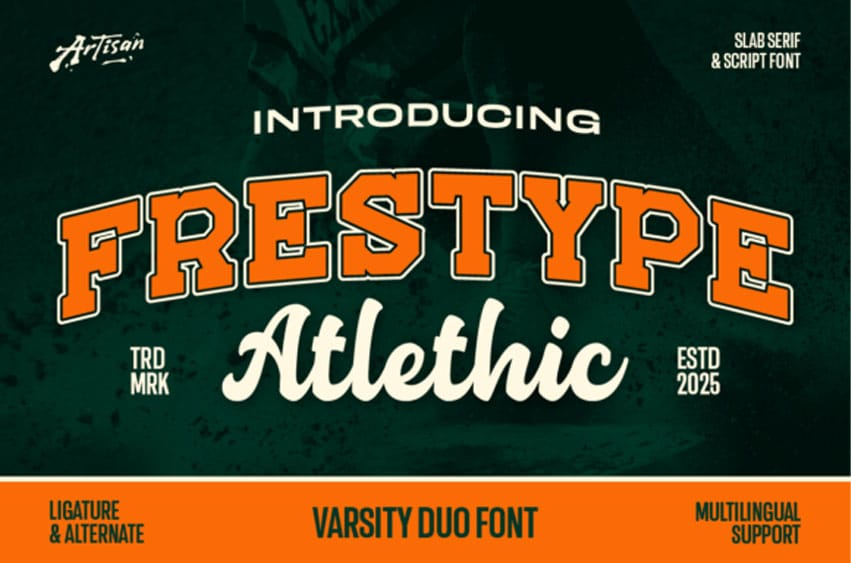
Frestype Atlethic Duo Font is your new varsity MVP, a powerful duo font that captures the full stadium energy by pairing a bold, arched slab serif with a smooth, energetic script, feeling like a signature on a championship jersey.
This comprehensive Frestype Atlethic font brings the ultimate athletic spirit, designed with punchy outlines, sharp angles, and a strong competitive vibe, making it perfect for anything sports-related, from basketball and football posters to college branding. The two styles—the bold varsity slab serif and the custom lettering script—work in perfect harmony to define team identity across all media, including esports logos and fan banners.
With ligatures, alternates for extra flair, and multilingual support, the Frestype Atlethic typeface allows you to design like a pro with zero limits, ensuring your jersey numbers, school merch, and apparel prints scream unmistakable team spirit. Get ready to boost your design game and bring the locker room hype straight to your layouts with this versatile and impactful font.